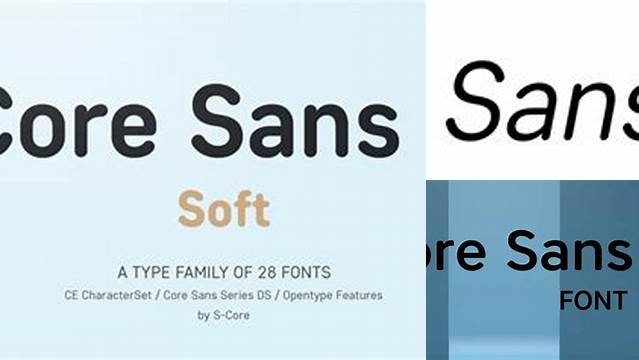
Core Sans DS Bold Font: Free Download & Guide
Hey there, font fanatics! Today, we're diving deep into the world of typography, specifically focusing on the Core Sans DS 57 CN Bold font. If you're looking for a strong, versatile, and attention-grabbing font, you've come to the right place. We'll explore everything you need to know about this fantastic typeface, including where to snag a free download and how to use it effectively in your designs. Let's get started, shall we?
Core Sans DS Font Family: A Comprehensive Overview
Alright, before we jump into the bold version, let's take a quick look at the Core Sans DS font family as a whole. This is a modern, clean, and highly legible sans-serif font designed by S-Core, a well-known font foundry. The Core Sans DS family is renowned for its versatility, offering a wide range of weights and styles, from light and airy to bold and impactful. This extensive range makes it perfect for various design projects, including websites, logos, brochures, and even body text. The Core Sans DS font is known for its geometric design, with clean lines and a balanced appearance. This design makes it a great choice for both digital and print media, ensuring a professional and polished look. The font family also offers excellent readability, even at smaller sizes, which is crucial for applications such as body text or user interface design. This makes Core Sans DS an ideal choice when you need a font that’s both visually appealing and highly functional. The entire family is designed to be user-friendly and aesthetically pleasing.
The Versatility of Core Sans DS
The versatility of Core Sans DS is one of its strongest selling points. The font family includes various weights, from thin to black, allowing designers to create a wide array of visual effects and establish visual hierarchy within their designs. For instance, the lighter weights can be used for secondary text or captions, while the bolder weights can emphasize headlines or key elements. This allows designers to control the flow and focus of the design, ensuring that important information stands out while the less critical information is secondary. Furthermore, the font supports multiple languages, making it a great option for global projects. Its broad language support ensures that your design can reach a wider audience without sacrificing visual consistency. This feature makes it highly adaptable for projects with different language requirements. This adaptability makes Core Sans DS a must-have for any designer looking for a go-to font.
Core Sans DS 57 CN Bold: Why Choose It?
So, what makes the Core Sans DS 57 CN Bold font special? Well, for starters, it's bold! This means it's designed to make a statement. The 57 CN Bold variant of the Core Sans DS font family is a robust and eye-catching typeface. The 'CN' in its name suggests that it's a condensed version, which means the letters are squeezed together horizontally, making it perfect for headlines, titles, and any design element where you need to save space while maintaining impact. Core Sans DS 57 CN Bold is designed to grab attention. Its thickness and condensed form make it ideal for headings, titles, and any area where you want to instantly grab the viewer’s eye. This font is perfect for any project. Whether you're designing a website header, a poster, or a logo, this font will give your work a professional and distinctive edge. The clean lines and strong presence of the font create a modern aesthetic. It is suitable for brands wanting to project confidence and clarity. It's a great choice for any project that needs a strong visual presence.
The Impact of a Bold Font
A bold font like Core Sans DS 57 CN Bold immediately commands attention. When used correctly, it can effectively communicate your message and draw the viewer's eye to specific parts of your design. The boldness of the font makes it stand out against other design elements. This is especially useful in crowded designs where you need to direct your audience’s focus. The thick strokes and heavy weight of the font help to create a visual emphasis. This is useful for attracting attention to your headlines and important text. It creates a powerful first impression on your audience. Bold fonts also enhance readability in various design contexts. They remain easily readable even at smaller sizes. The enhanced readability is especially beneficial in printed materials, such as posters and brochures, ensuring that your text is clear and easily understood. By incorporating a bold font, you can ensure that your design projects are both engaging and effective in conveying your message to your audience. The boldness helps to create visual hierarchy and structure.